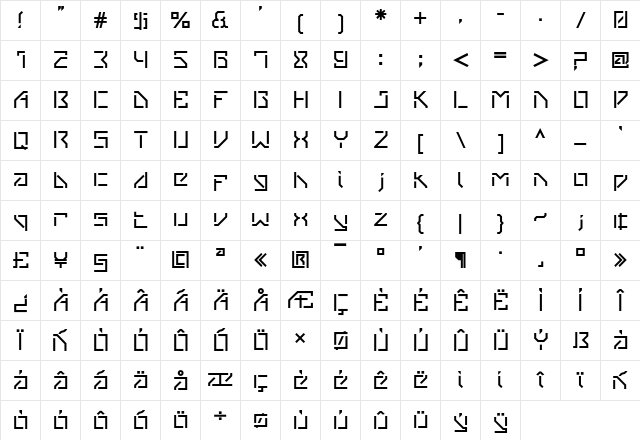
VanBerger Stencil
| Style | Stencil |
| Foundry | Jonathan Hill |
| Designer | Jonathan Hill |
Design Context for VanBerger Typeface
VanBerger borrows the utilitarian aesthetic of stencil lettering, with its characteristic cutaways and no-frills construction lending an industrial edge.
Ideal for industrial branding, streetwear, military-adjacent aesthetics, and urban signage projects.
Pro Tip: Pair VanBerger with raw, utilitarian design elements — exposed concrete textures, flat colour, and minimal ornamentation suit it well.